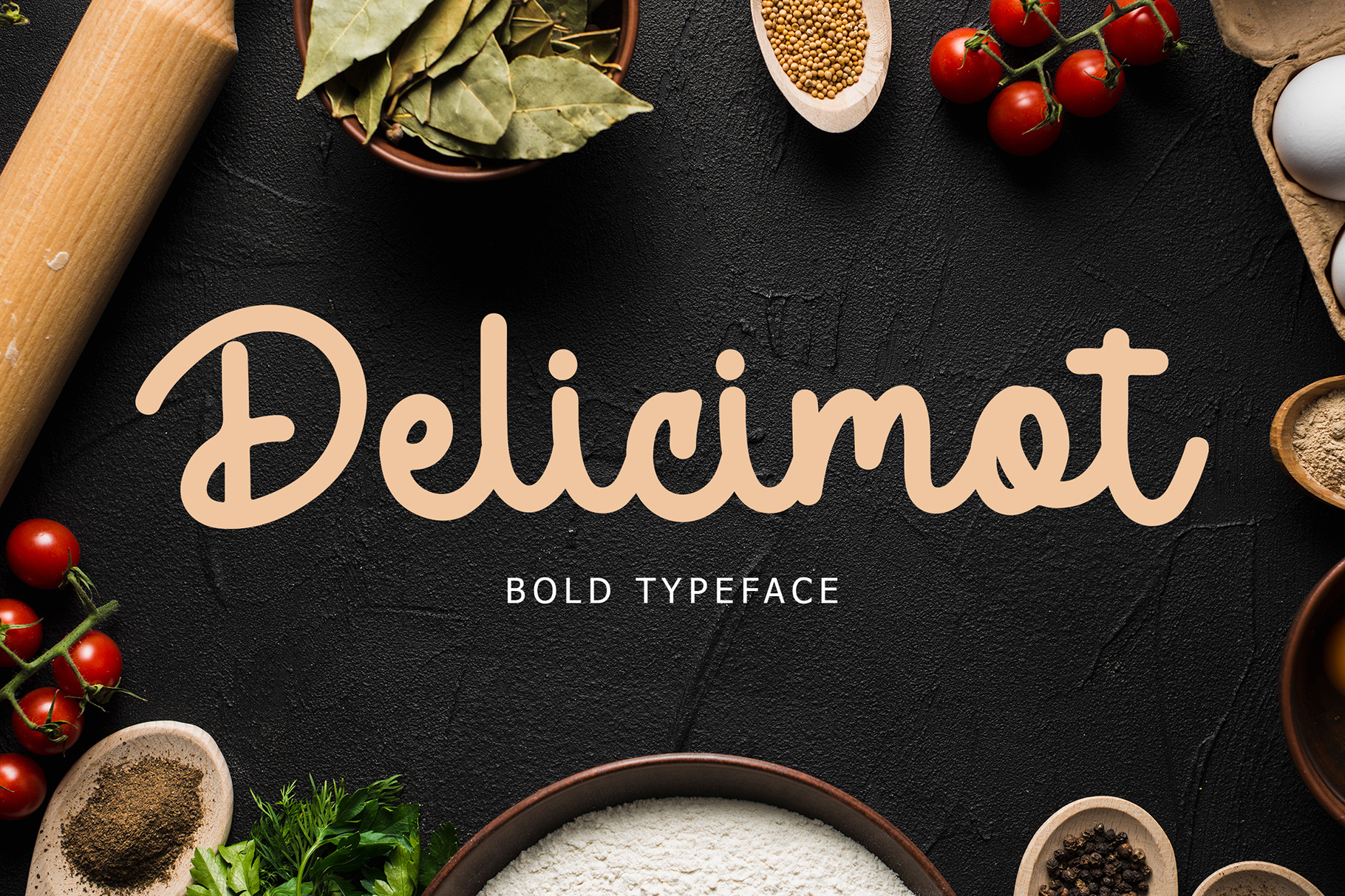
Delicimot Delicious Script Font
Delicimot Delicious Script Font for food, cake, and any food industry Script font, can make your text appear elegant, luxurious, and modern!
Delicimot is perfect for branding projects, logo, Food Vlogger, Blogger, social media posts, advertisements, product packaging, tshirt design, product designs, label, photography, watermark, invitation, stationery, and any projects.